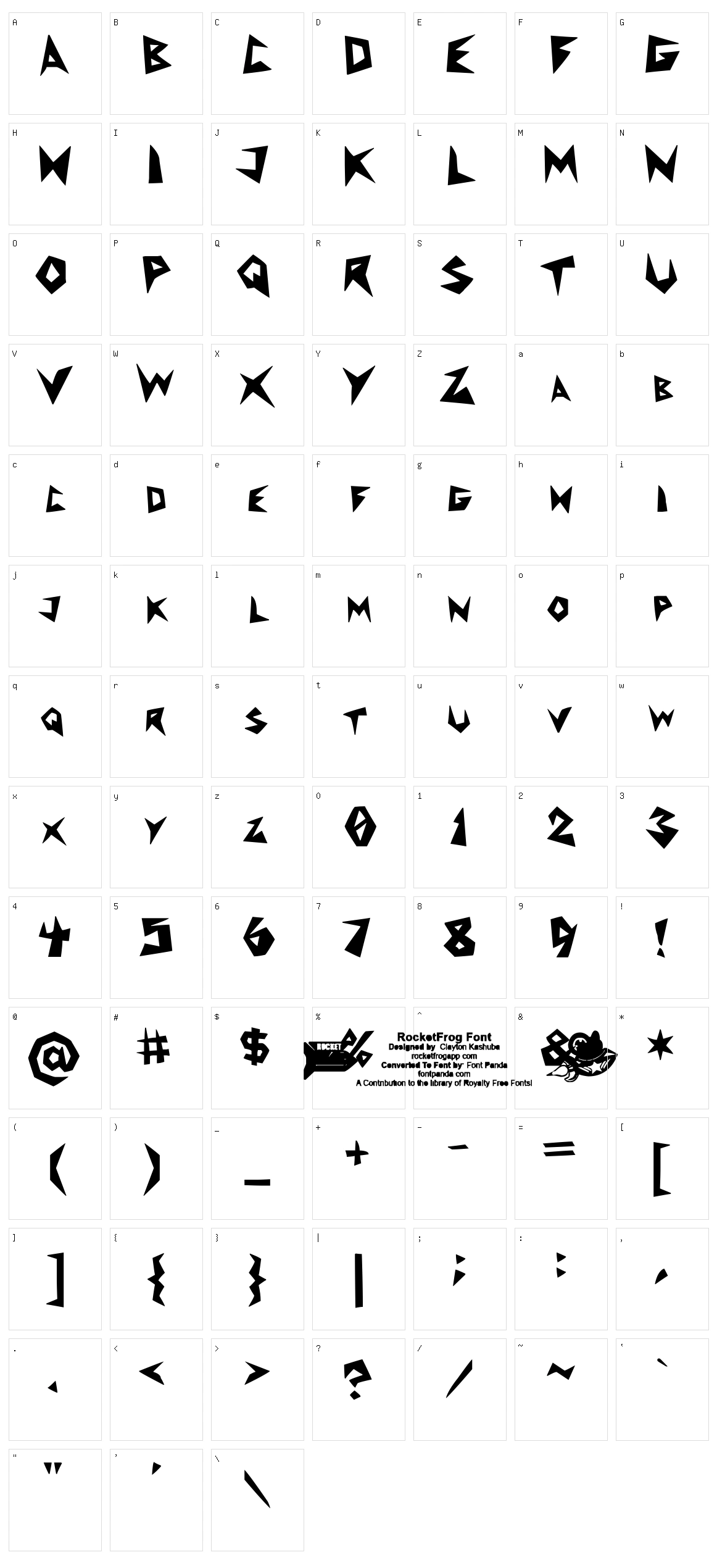
The free font RocketFrog is carefully designed by Clayton Kashuba, showcasing a thoughtful balance of creativity and usability and falls under the Cartoon font style. When you download the ZIP file, it contains only 13.08 KB of font files, making it lightweight and quick to download. Please review the license details below to understand permitted usage and distribution rights. If license information is not available, we recommend using this font for personal projects only or contacting the author directly for commercial usage permissions.